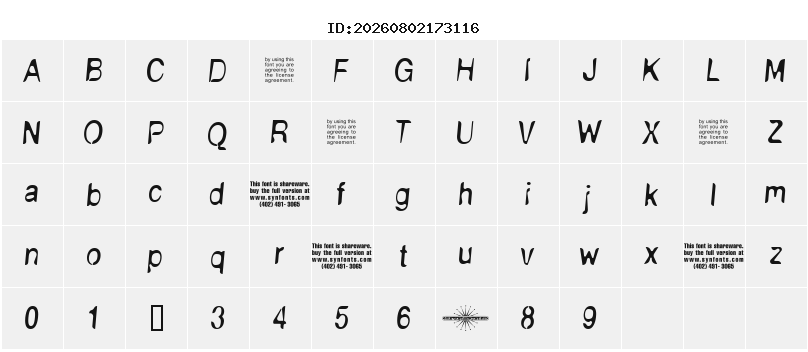
• Font Name: NudE
• Full Font Name: NudE UNPAID DEMO
About NudE.ttf
NudE.ttf is a modern, elegant sans-serif font designed for ultimate readability and visual harmony. Perfect for branding, headlines, web design, and print materials.